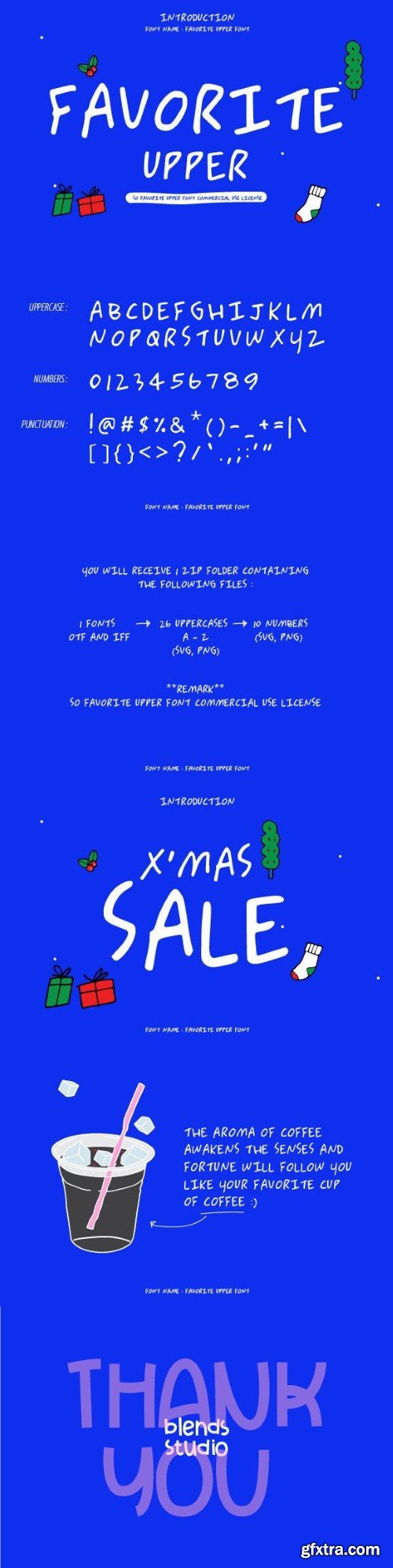
favorite 上方字体
Favorite Upper font is the one that brings you joy. Every Alphabet greets each beautiful morning with smiles, energy, and freshness. It is sort of like a festival; it might happen any day. One of the goals is the minimalist, free-form arrangement. I enjoy the allure of formlessness. It might turn out to be more fun than you thought, and when you put your favorite typeface together in a sentence, you might unwittingly fall in love with it..